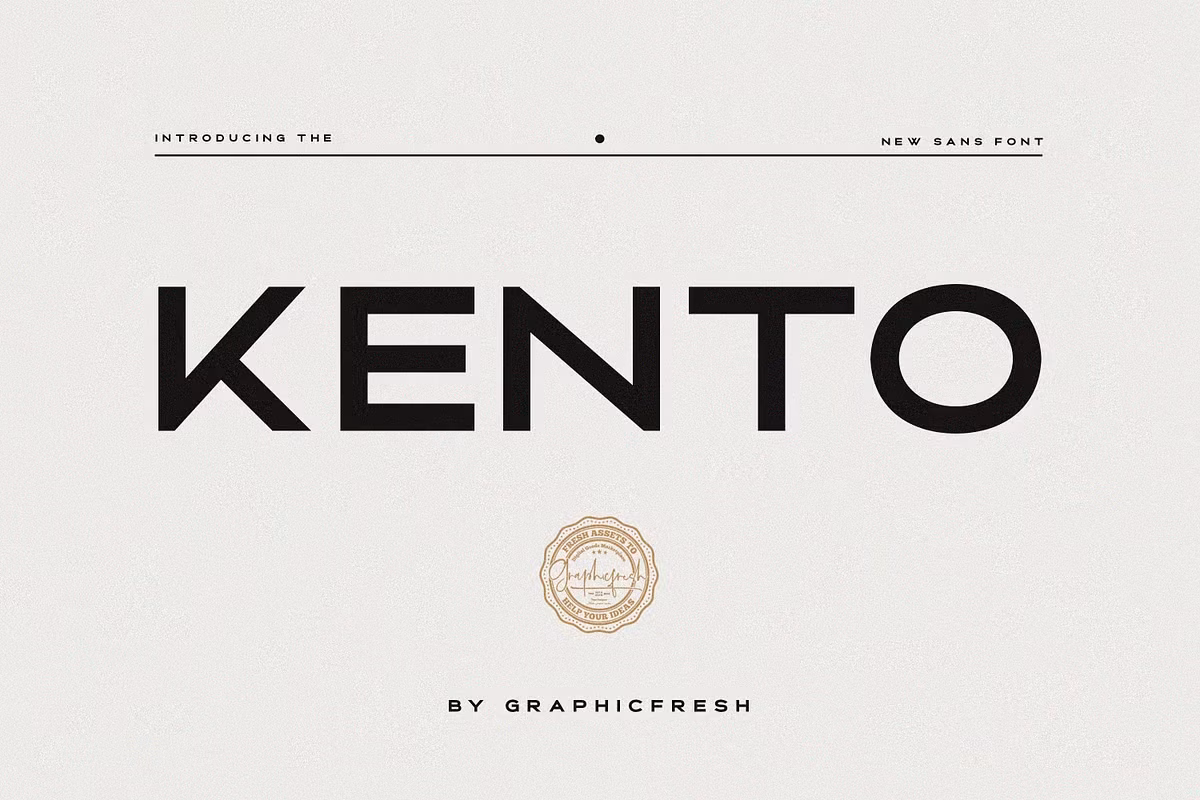
Kento - The Modern Sans Font Free Download
Kento - The Modern Sans Font Free Download is a clean and contemporary typeface designed to bring a sleek, professional feel to your designs. Featuring geometric shapes and balanced proportions, this font is perfect for logos, websites, branding, editorial layouts, and more. Its versatility makes it ideal for both corporate and creative projects, offering clarity and elegance in every application. Whether you're working on a modern tech brand, a creative campaign, or a polished website, Kento - The Modern Sans Font Free Download allows you to experiment with its sharp design in personal projects before purchasing a commercial license. Add sophistication and modernity to your designs with this beautifully crafted sans-serif font.